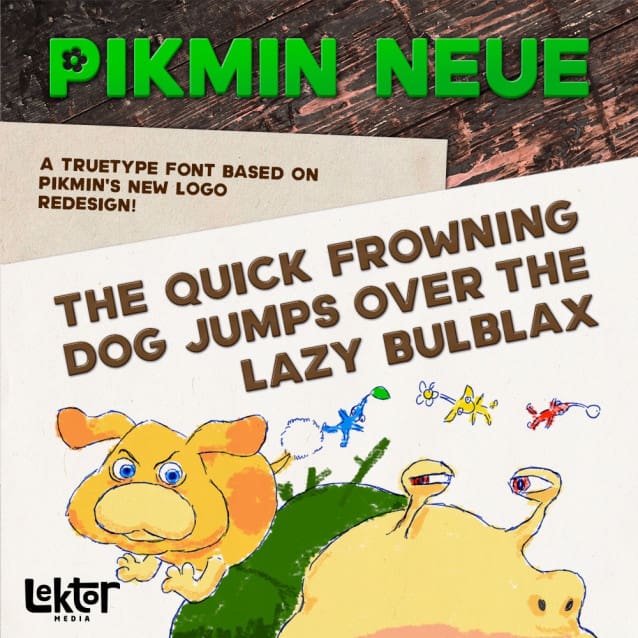
Pikmin Neue Font
Pikmin Neue Font is OpenType font based on the new graphic profile for the Pikmin series. It contains a decent amount of glyphs, is kerned and hinted and should work well for titles and thumbnails.
The letters and numbers visible in various logos have been recreated 1:1, while the rest of the typeface is extrapolated from those. Uppercase P and O are special characters with floral decorations based on the main logo and the Pikmin Bloom one.
This file will probably be updated if Nintendo releases materials that reveal new glyphs.